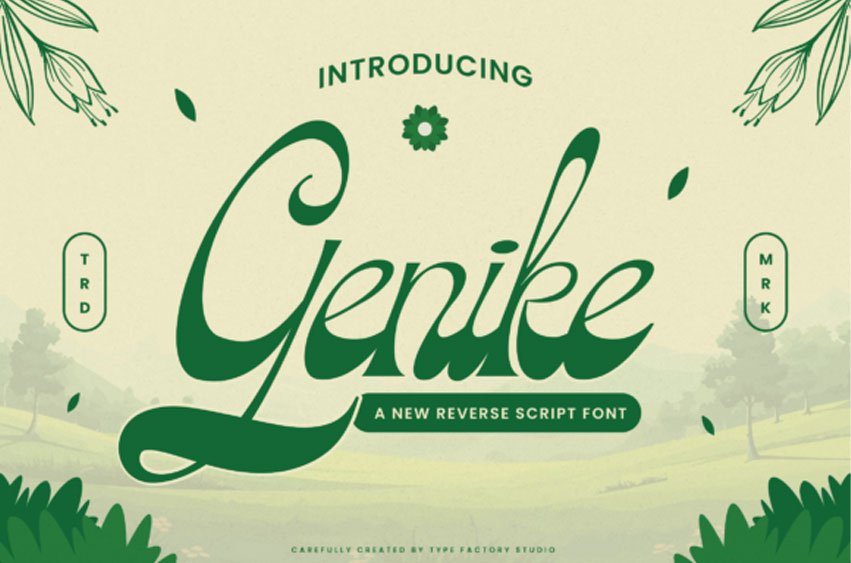
Genike Font is a vintage-inspired script typeface with a distinctive reverse contrast style, combining flowing letterforms with a soft floral aesthetic. The design features smooth curves, swashes, and decorative details that bring a natural and expressive handwritten feel.
Its character set includes uppercase, lowercase, numerals, punctuation, and multilingual support, making it suitable for a wide range of design needs. The unique stroke contrast gives Genike a recognizable look that stands out in display settings.
This typeface works well for wedding invitations, branding, packaging, logo design, and editorial layouts that require a warm, organic, and nostalgic touch.